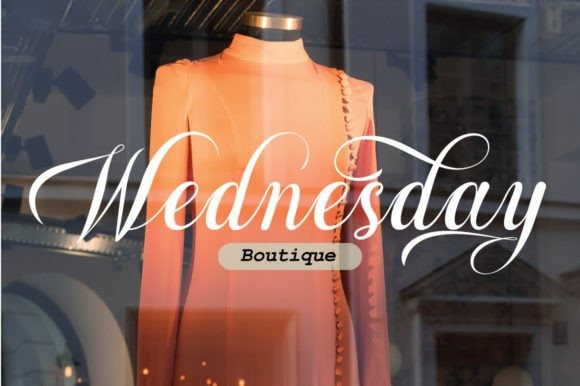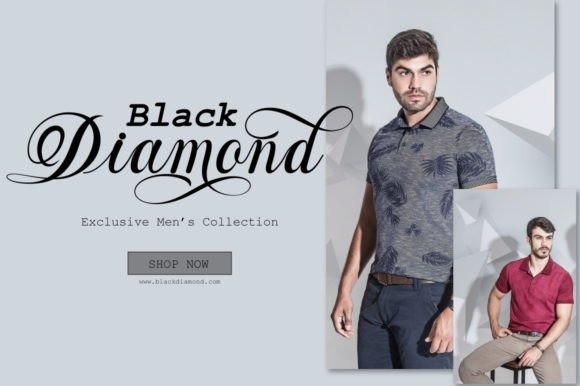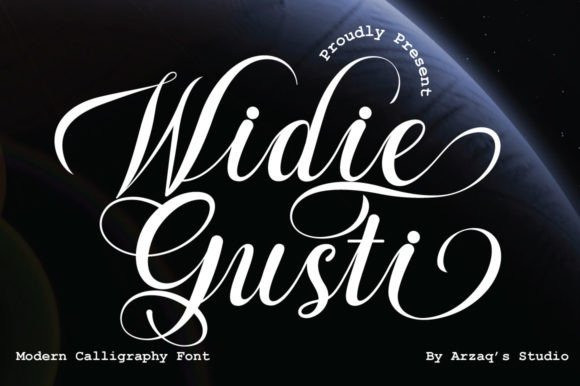
Widie Gusti Font
Widie Gusti Script Font is a beautiful and refined calligraphy font. Classy and modern, it is perfect for wedding invitations, logos, branding, invitations, stationery, wedding designs, apparel branding, and much more! Fall in love with its incredibly distinct and timeless style, and use it to create spectacular designs! This font is PUA encoded which means you can access all the glyphs and ligatures with ease!